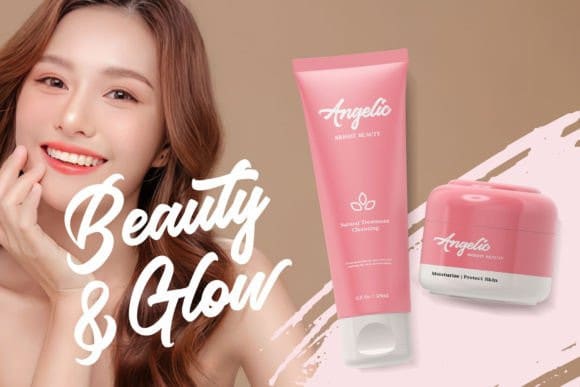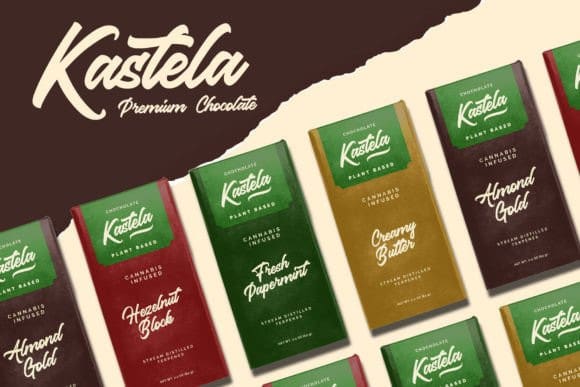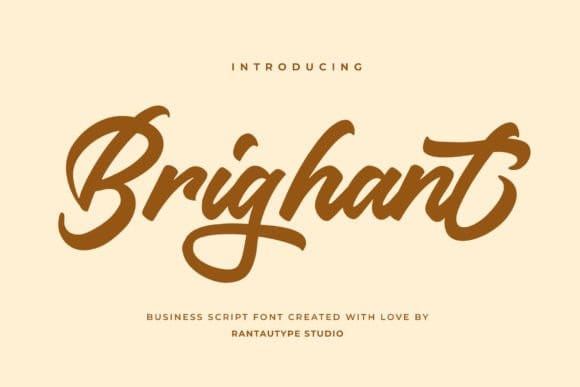
Brighant Font
Brighant Font is a business script typeface that looks modern with a soft curve and casual shape. Experience perfect visual form for your business to make it more stand out and memoriable with Brighant typeface.